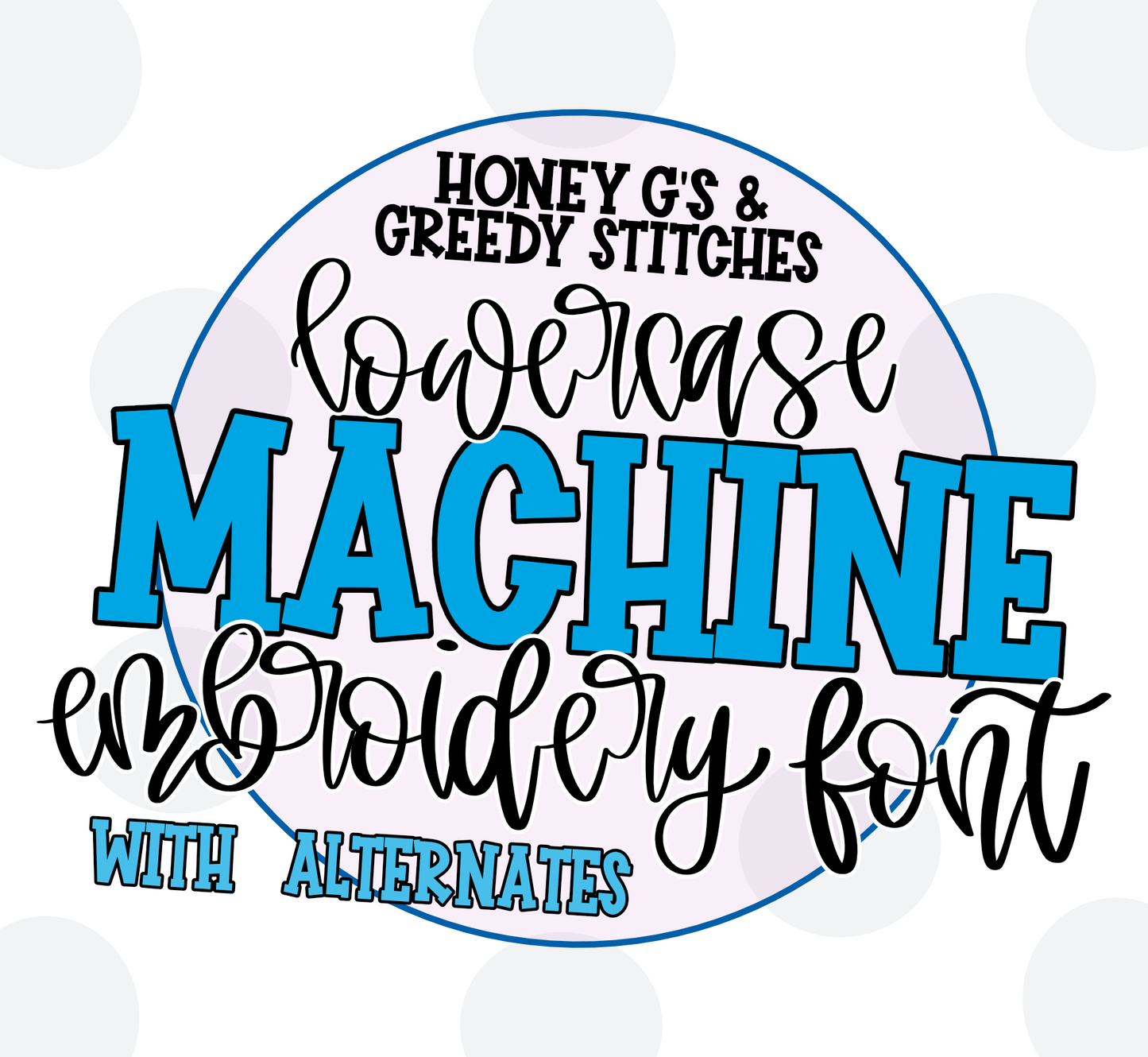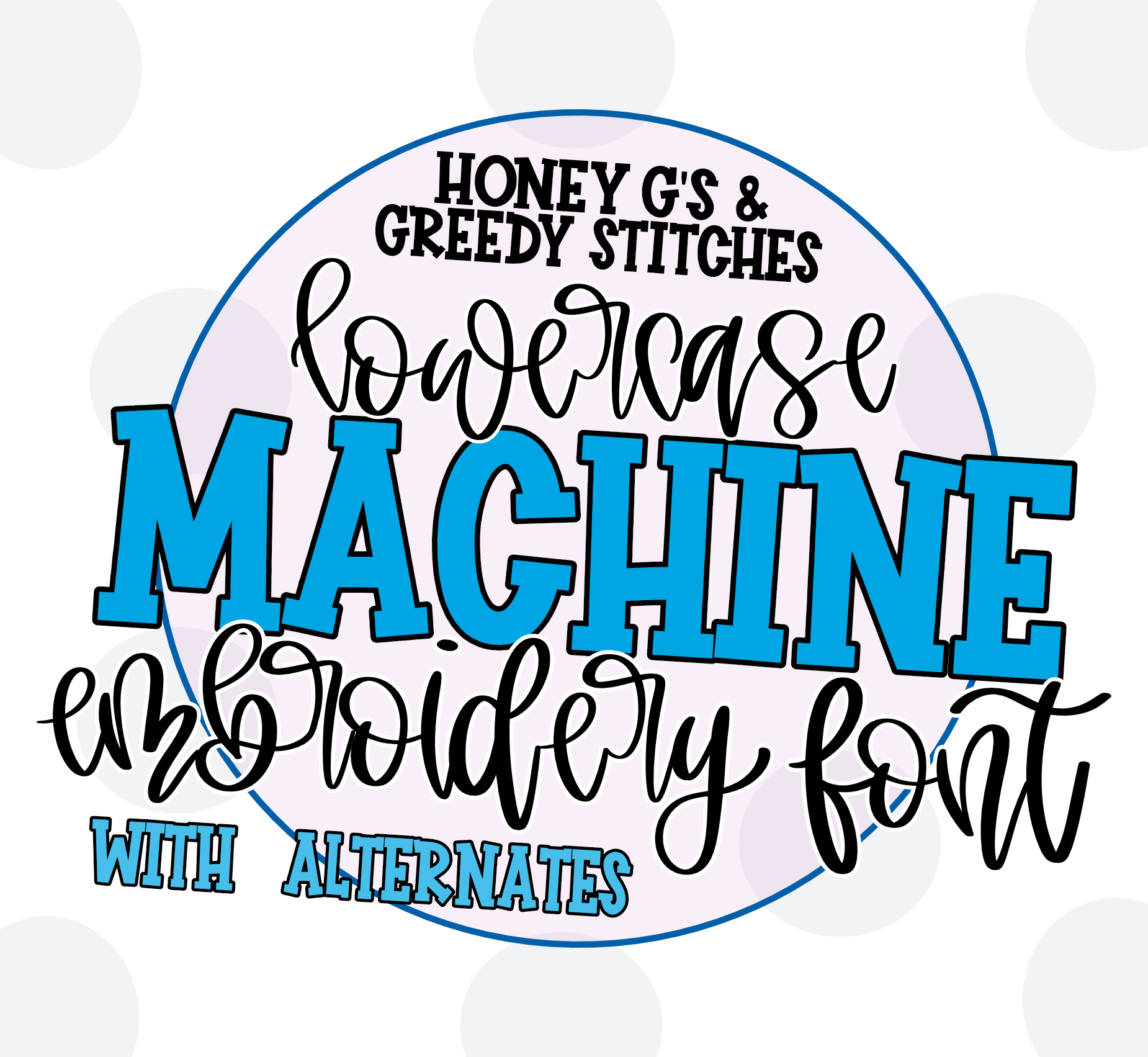
Presley Foam Machine Embroidery Font - 5 Sizes
This is a satin stitch machine embroidery font. This is a lowercase handlettered, script font. Not all letters will have alternates. This is a native BX font, and it can be sized from 1" to 3." This font has been digitized to use with 3mm embroidery foam.